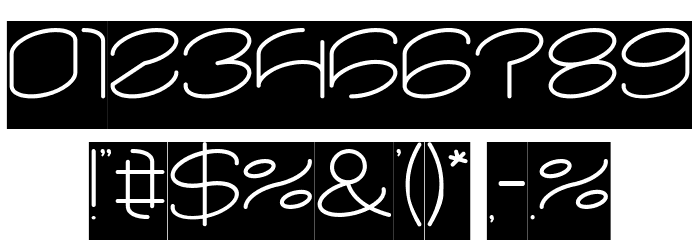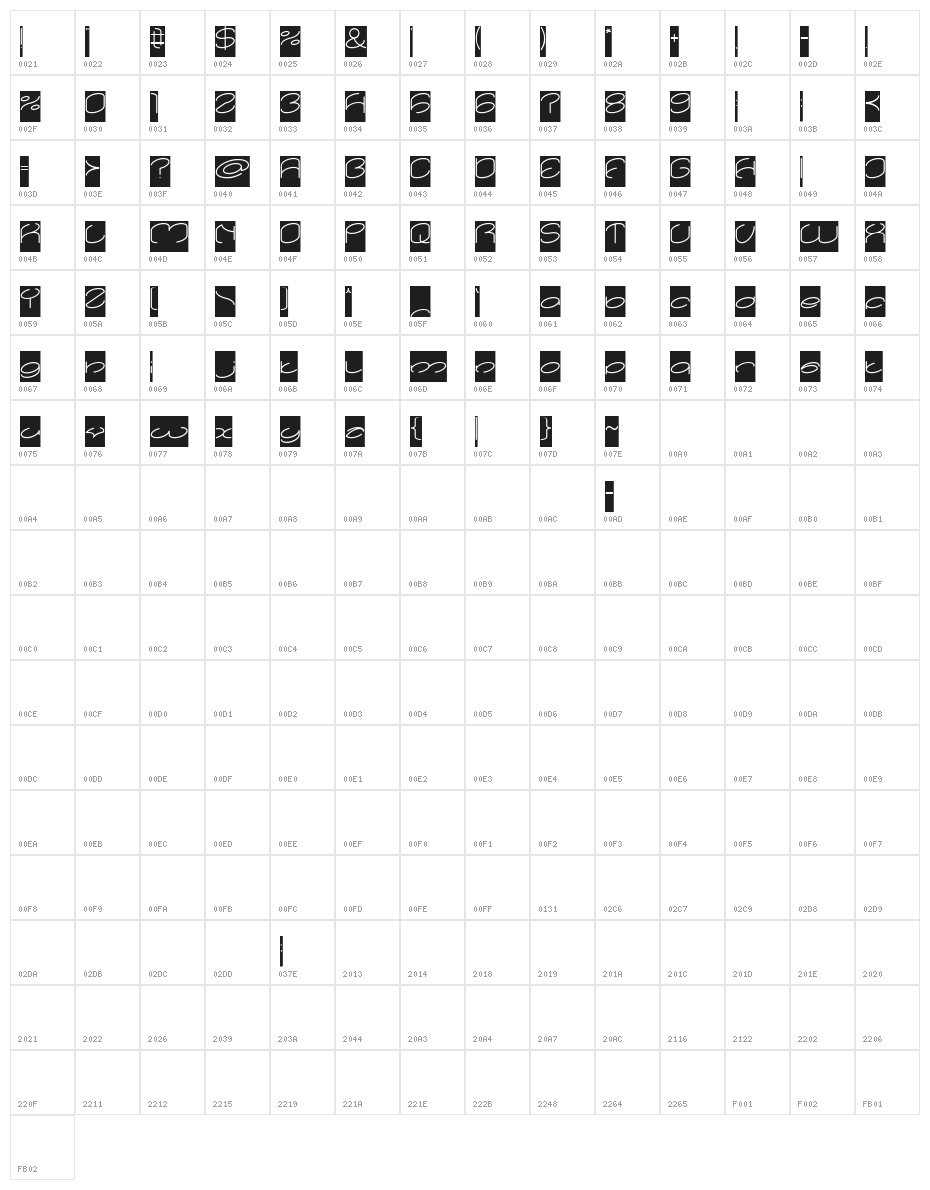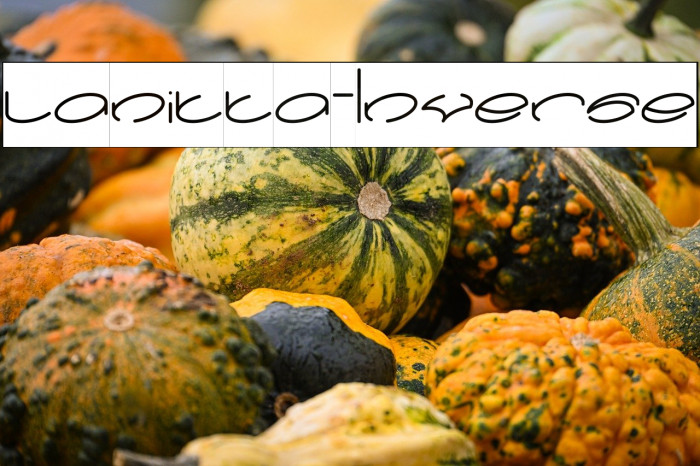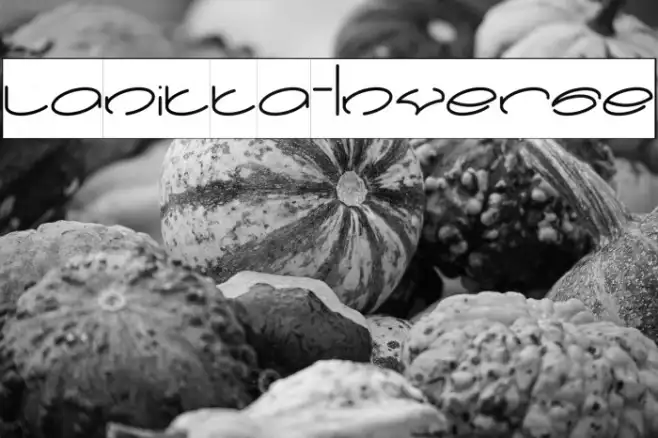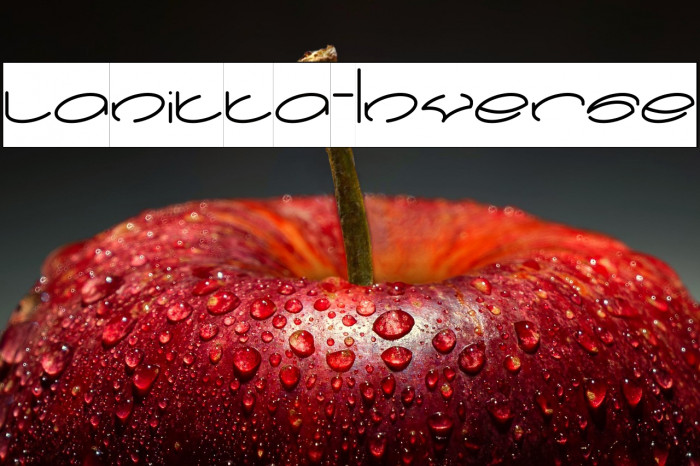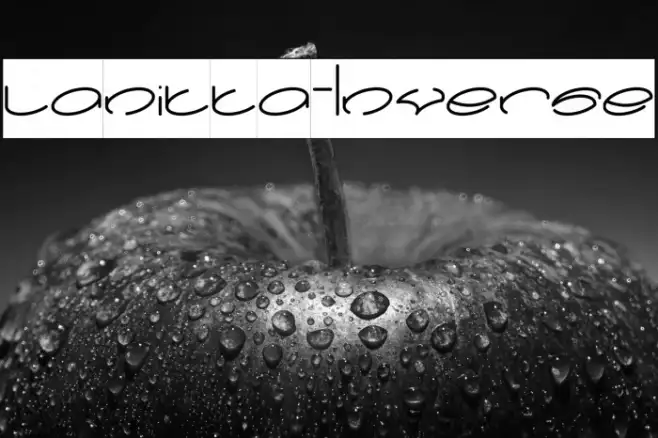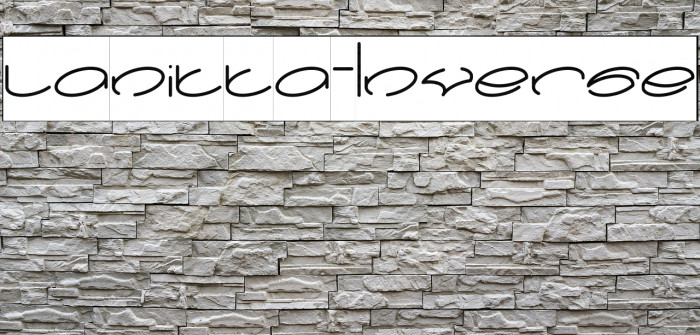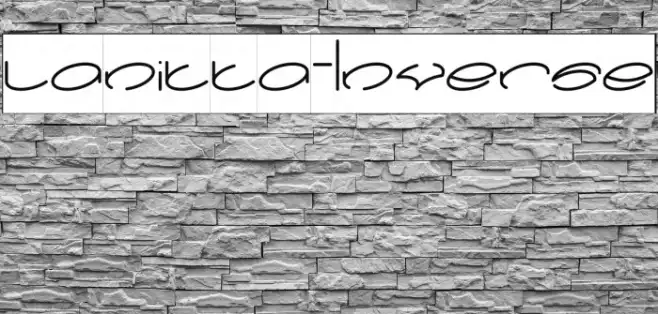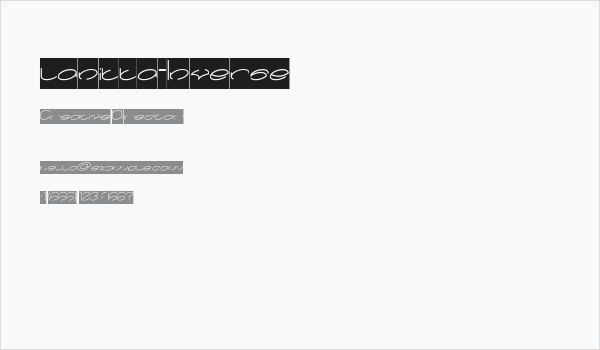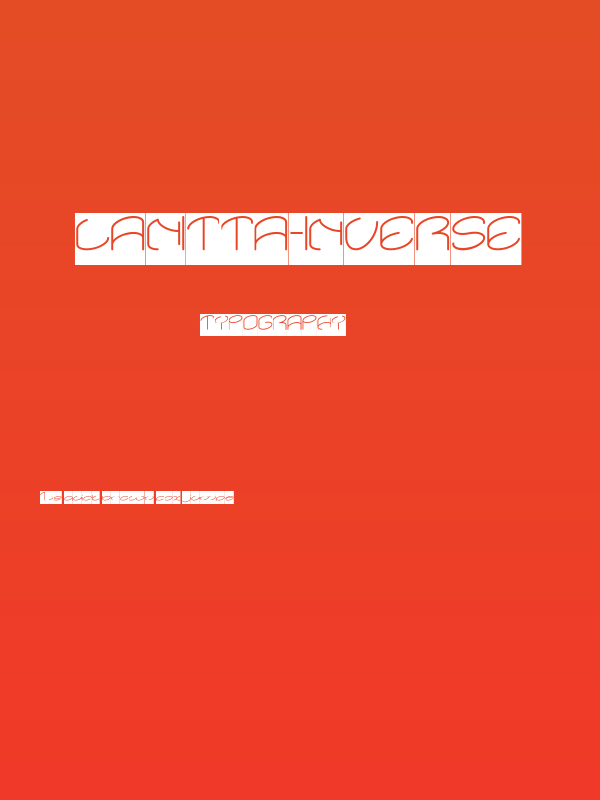
lanitta-Inverse Font
lanitta-Inverse Description
This font features a unique and modern design with a sleek, futuristic aesthetic. The characters are crafted with smooth, flowing lines that create an elegant and sophisticated appearance. The uppercase letters are bold and striking, while the lowercase letters maintain a consistent style with a slightly more delicate touch. The numerals are distinct and easy to read, complementing the overall design. Special characters are included, maintaining the same stylistic elements, making this font versatile for various applications.